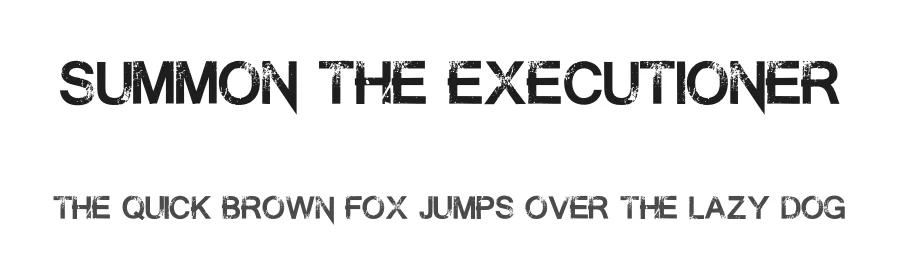
About Brutal Font
Brutal is a decorative font designed by nathanmandon. It includes 77 glyphs, a regular weight, OTF (CFF) format, and 96 languages. Brutal is free to download; check the license details on this page before commercial use. Decorative fonts like Brutal work best for logos, posters, packaging, and standout headlines.
Brutal Font is a decorative font that shines as a display or heading face. Pair it with a clean sans-serif or serif font for body text — the contrast creates a clear hierarchy while the two styles stay balanced and easy to read.
Brutal Font
by nathanmandon